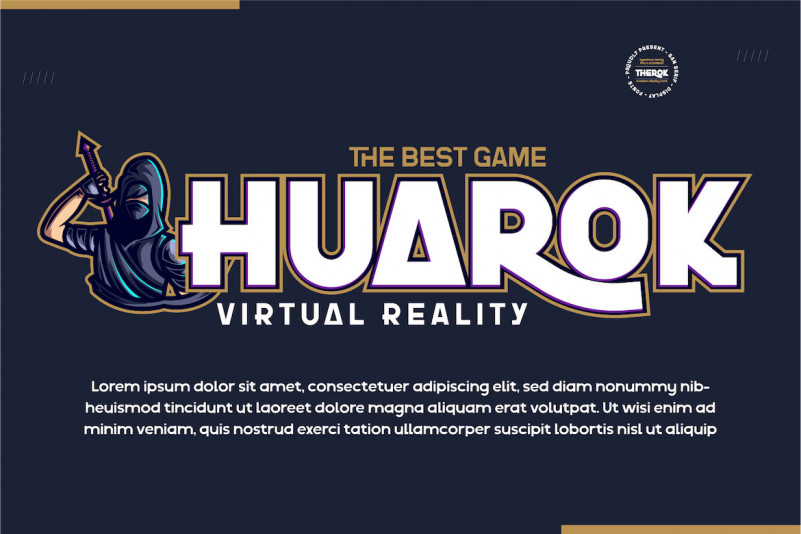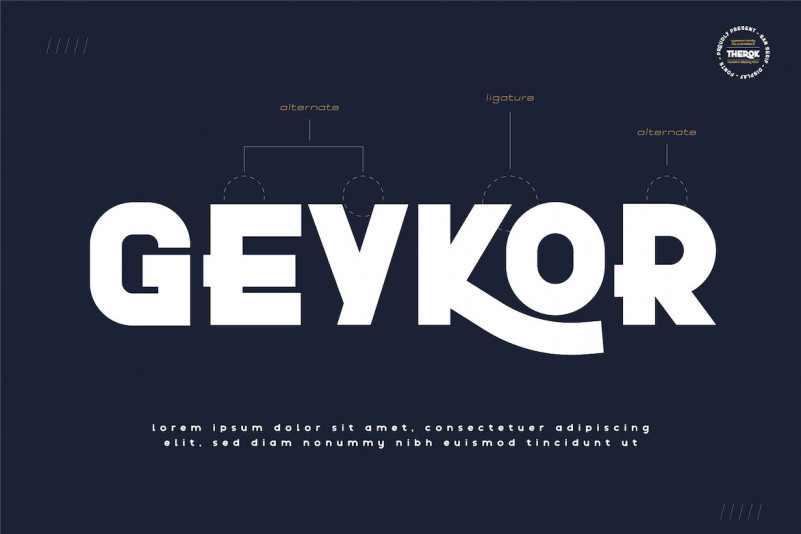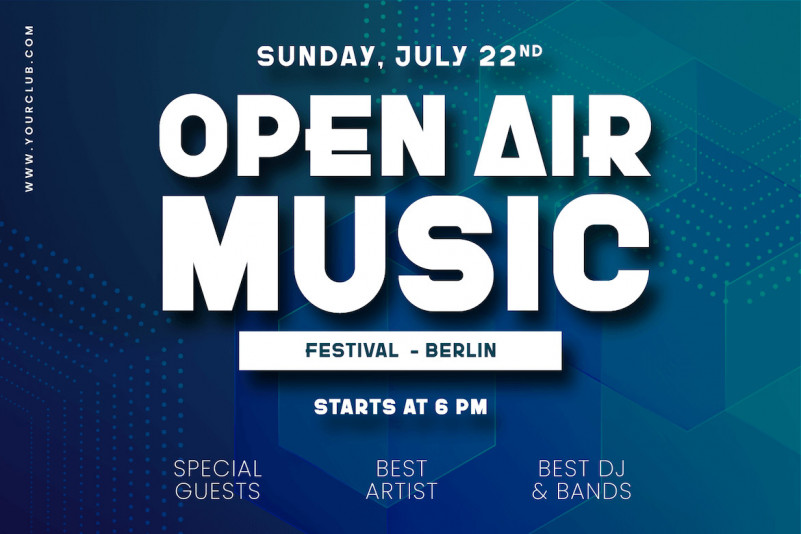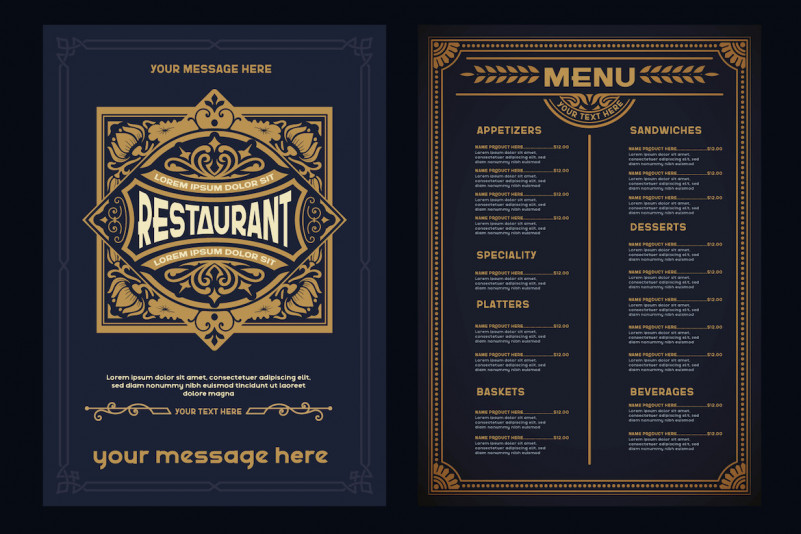
Therok Sans Serif Font
This font is powerful for your very extraordinary project. This font is perfect for games, sporting events, branding, banners, posters, movie titles, food and beverage, technology, quotes, clothing, logo types and more.
of course, your various design projects will be perfect and extraordinary if you use this font because this font is equipped with a font family, both for titles and subtitles and sentence text, start using our fonts for your extraordinary projects.